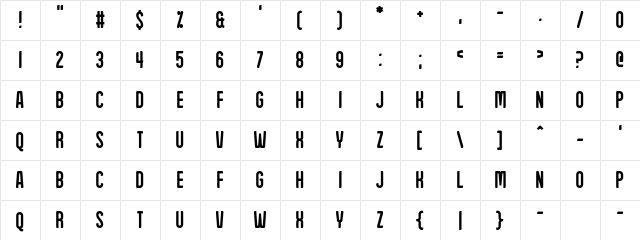
Complete Sunday Afternoon Regular glyph index. Displaying only characters natively supported by Sunday Afternoon Regular font.
Sunday Afternoon is a composed and adaptable typeface that performs quietly and consistently across a wide range of design contexts.